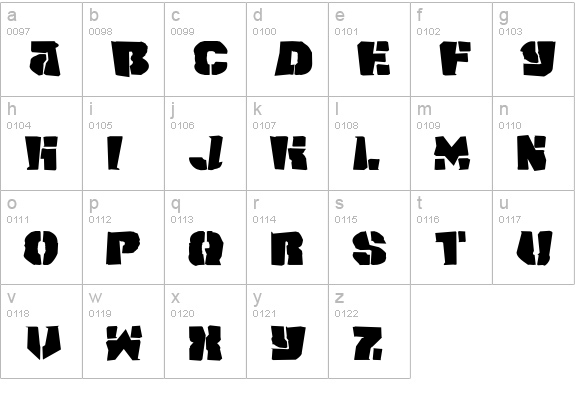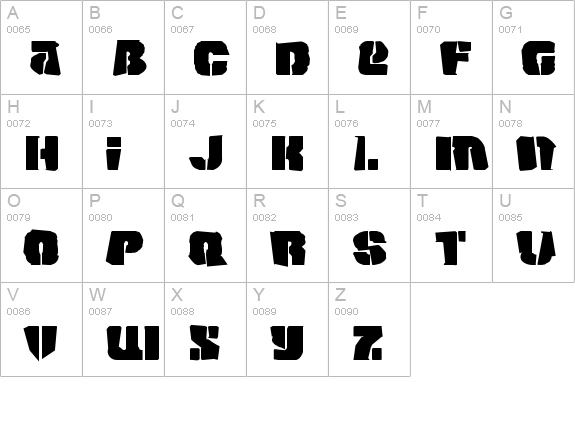
Space Junker Font Details
Introducing Space Junker, a futuristic and edgy font that will take your designs to new heights. With its sleek and angular curves, this font perfectly captures the essence of outer space exploration and technological advancements. Space Junker is not just any ordinary font; it is a work of art meticulously crafted to add a touch of modernity and innovation to your projects. Whether you're designing a sci-fi movie poster, creating a high-tech website, or crafting a cutting-edge logo, this font will elevate your design to the next level. What's even better is that Space Junker is freely available to download at FontsMarket.com. Yes, you heard it right! You can now access this incredible font without spending a dime. With its generous license, you can use Space Junker for personal and commercial projects without any restrictions. This font is designed with versatility in mind. It includes a wide range of uppercase and lowercase characters, numerals, punctuation marks, and special symbols, allowing you to unleash your creativity and experiment with different typographic styles. Whether you prefer a bold and impactful look or a more subtle and refined approach, Space Junker has got you covered. Don't miss out on this opportunity to enhance your designs with the captivating allure of Space Junker. Download it for free at FontsMarket.com and embark on a journey into the cosmos of typography. Let your imagination run wild and watch as your designs soar to new dimensions with this exceptional font.